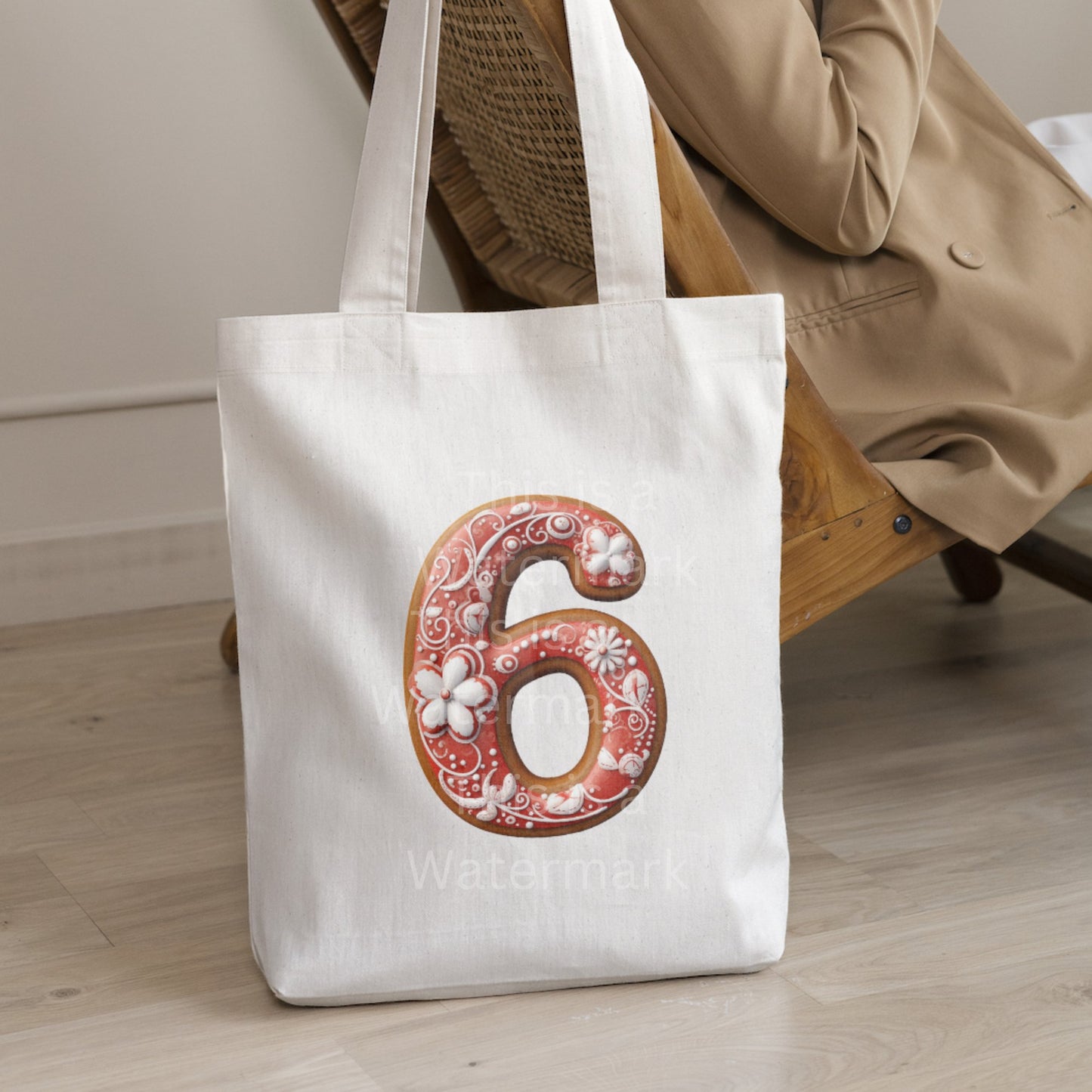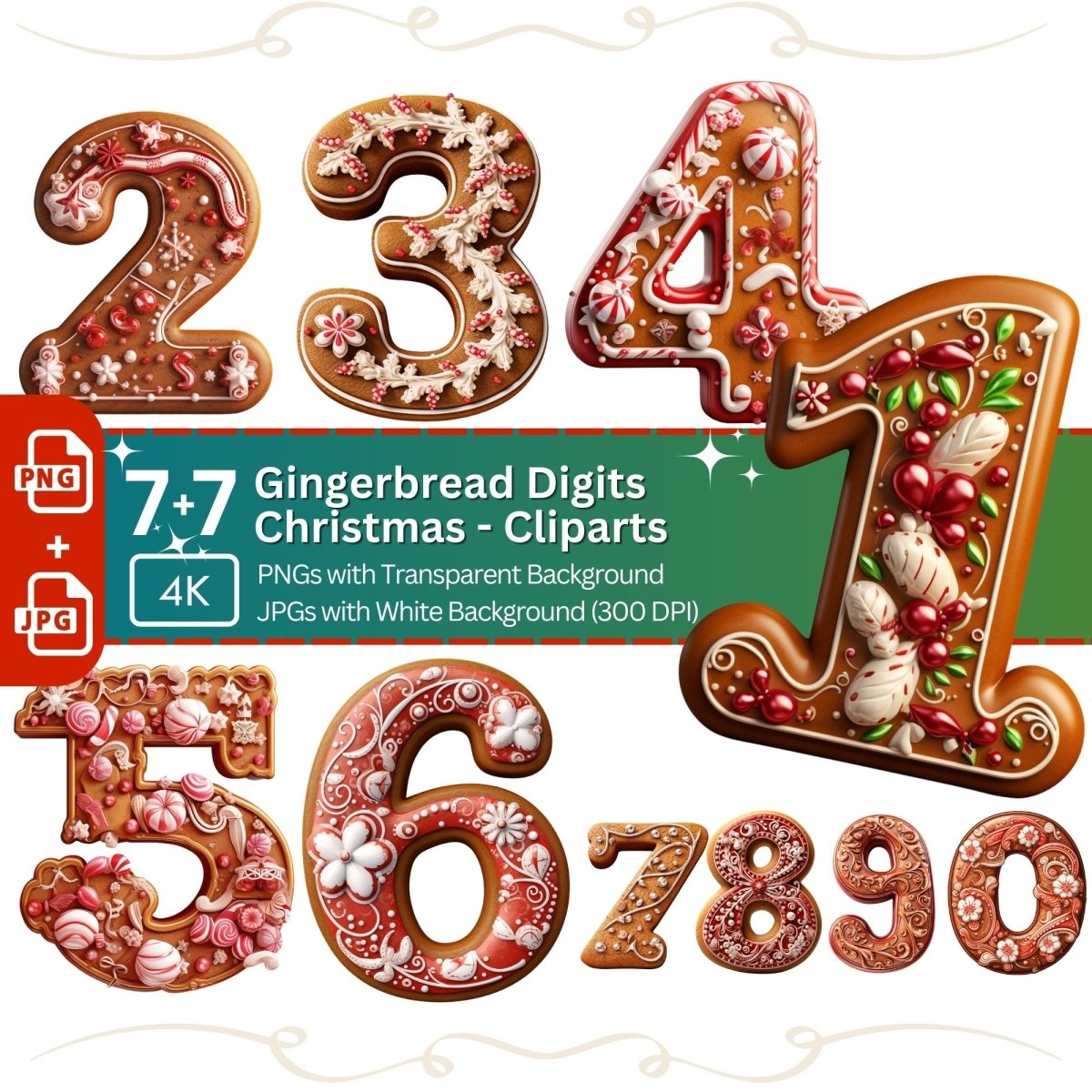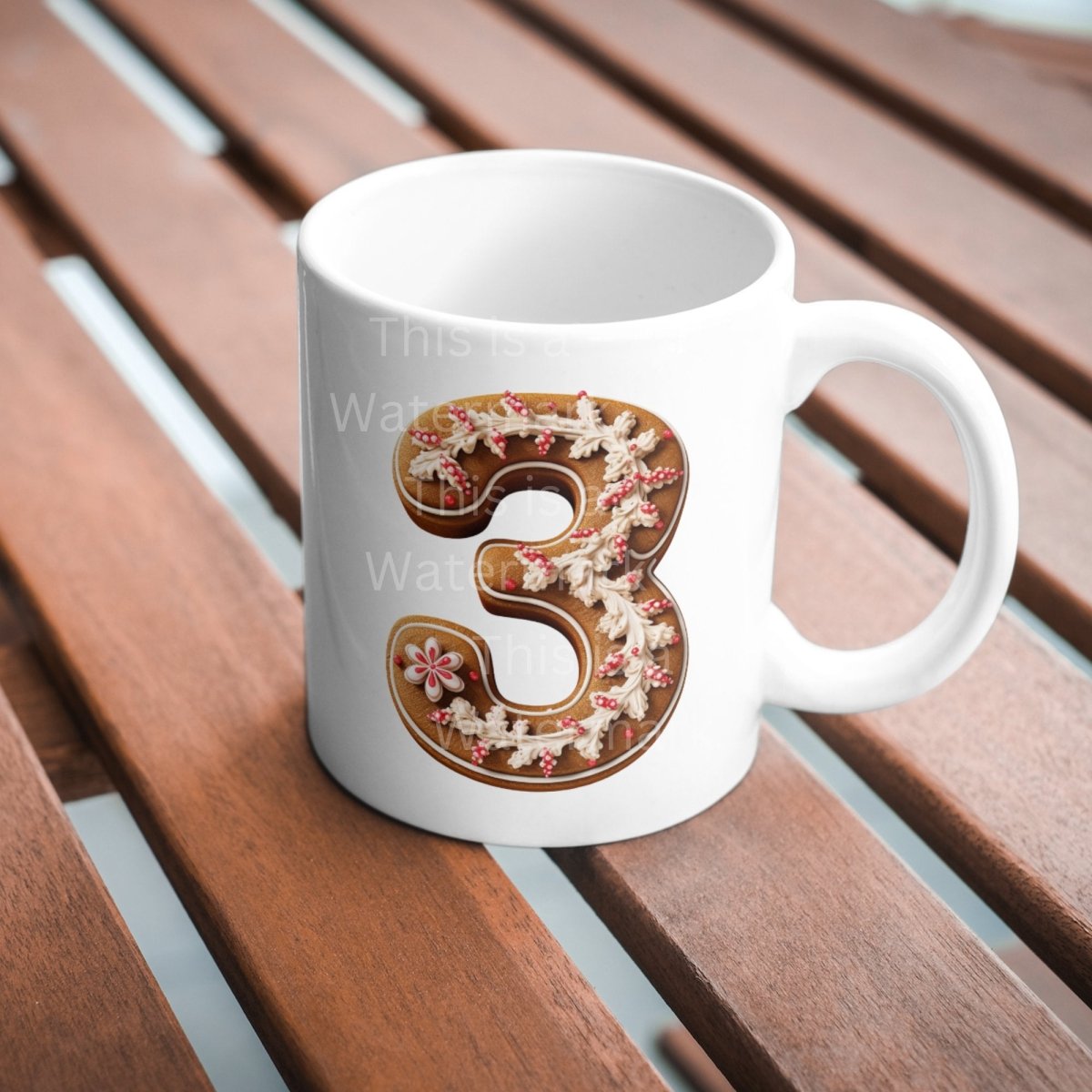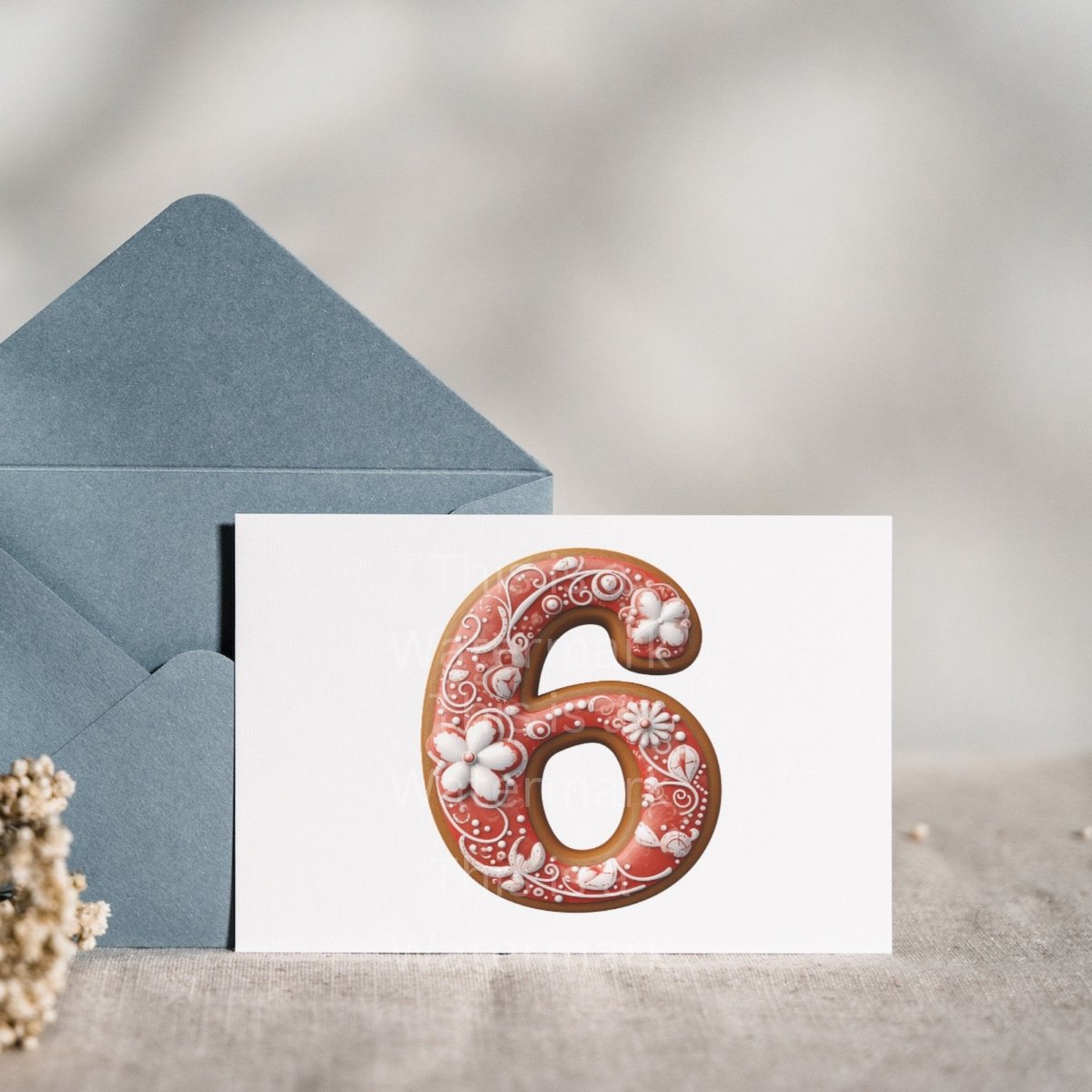
Gingerbread Digits 10x PNG Clipart Bundle Christmas Font Clipart Card Making Clip Art Digital Paper Craft Holiday Number Graphic
The Digits 0-9 in a Gingerbread Christmas Design Clipart. Perfect for Christmas Invitations or Cards. Clipart PNG with transparent background, also 10 JPG files with white background.